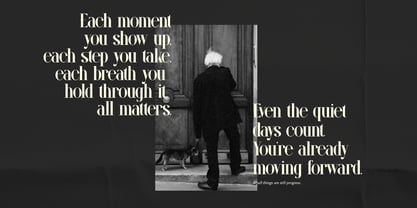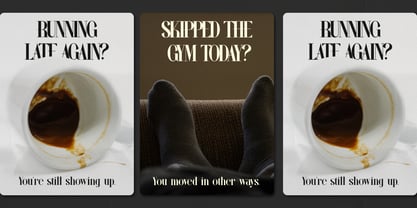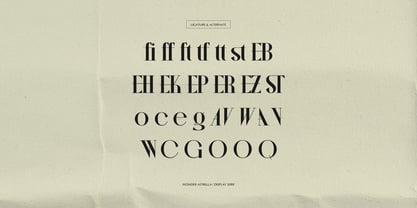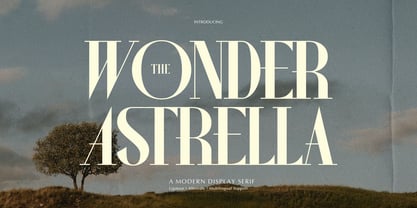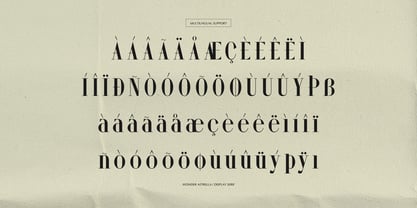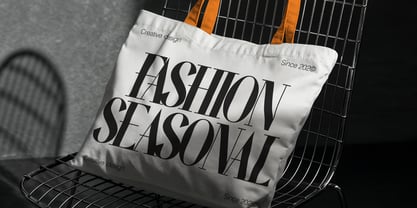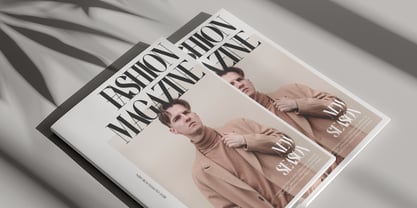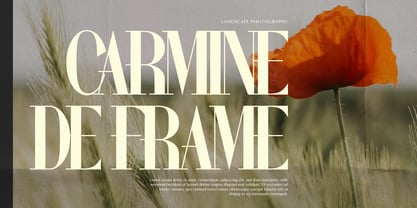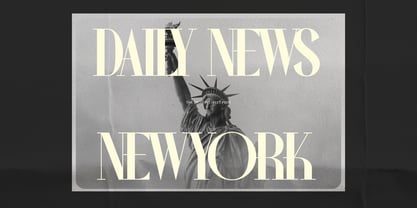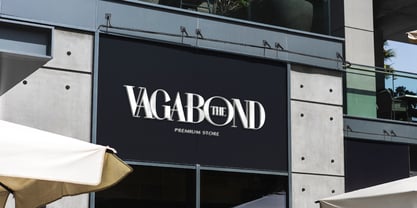
Wonder Astrella
by Tini Fitriani
The Wonder Astrella Font Family was designed by and published by Tini Fitriani. Wonder Astrella contains 2 styles and family package options. More about this family
Wonder Astrella | Modern Display Serif, from Gracetypestudio, suitable for any projects such as: logos, branding projects, homeware designs, product packaging, mugs, quotes, posters, shopping bags, t-shirts, book covers, name card, invitation cards, greeting cards, label, photography, watermark, special events, and all your other lovely projects that need a Modern Display Serif taste.
• Regular and Italic
• Standard glyphs
• Alternate and Ligature
• Fonts include multilingual support